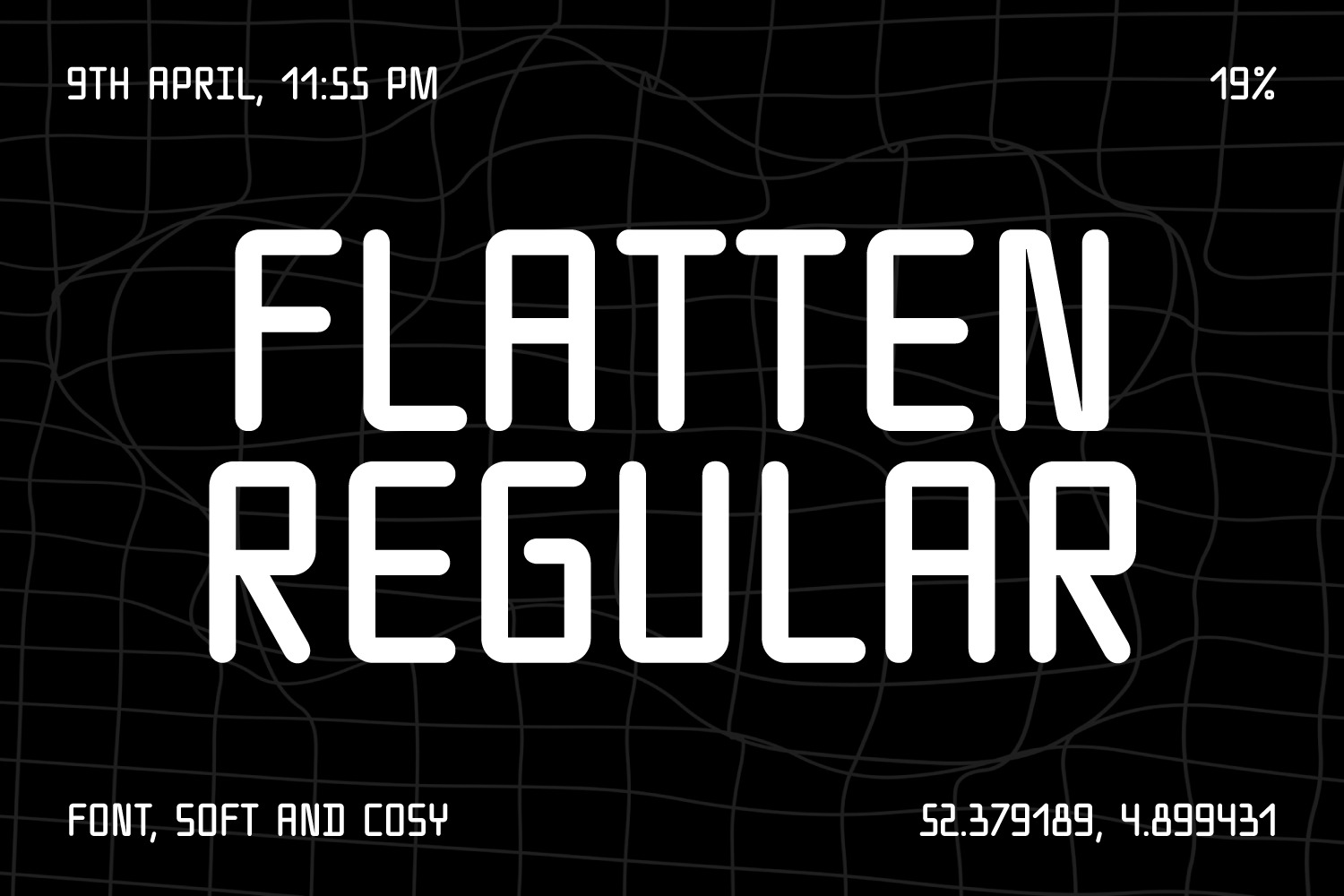
Flatten
FLATTEN is a soft, warm and beautiful grid-based typeface which was created to make webpages, paper and identities cosy and welcoming. Really amazing when using unicase!
- Latin (+Western Europe) and Cyrillic
- Great ups and beautiful lows
- Numerals, Symbols, Punctuation, Arrows